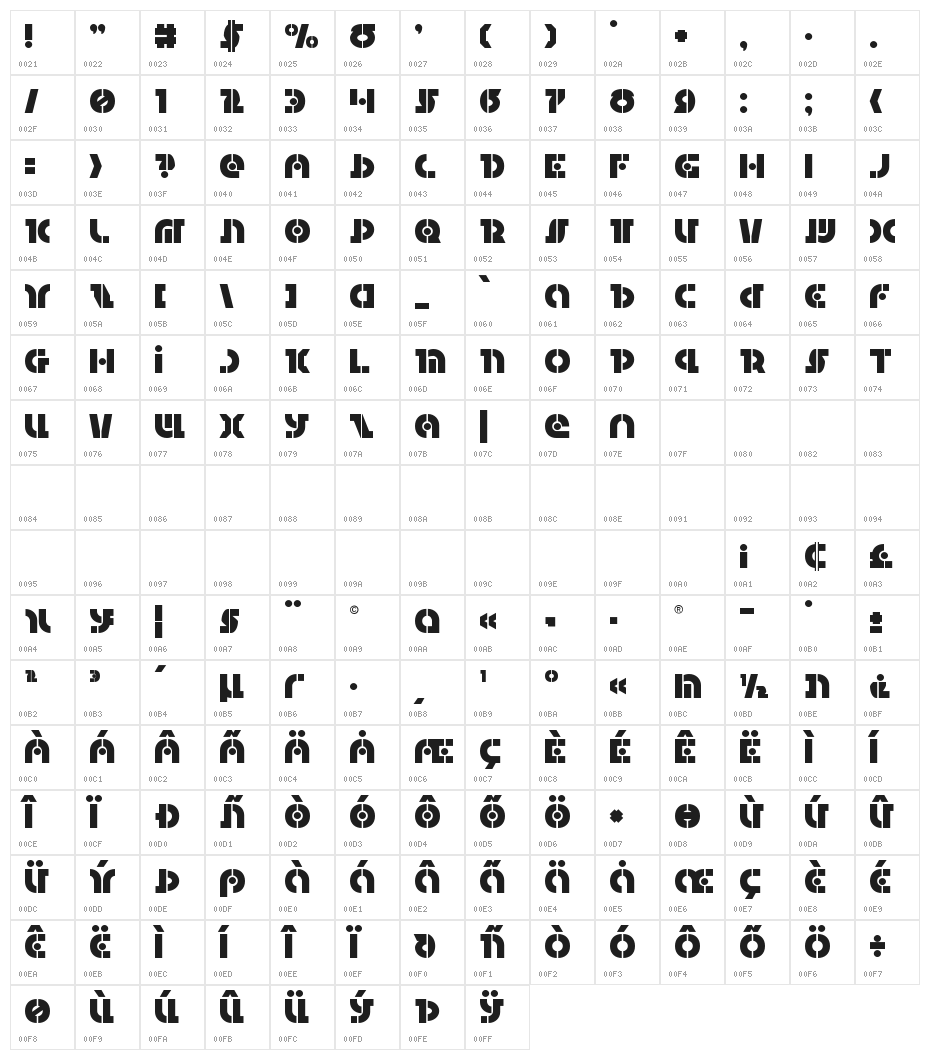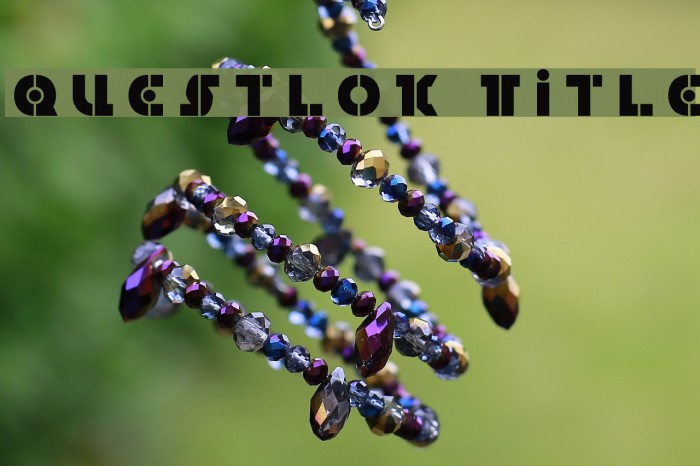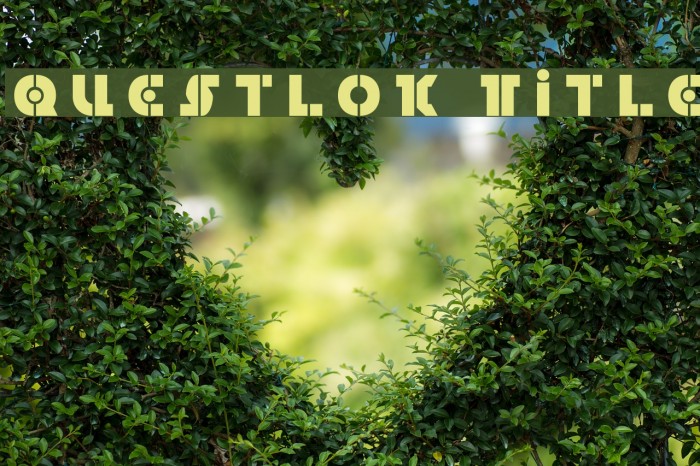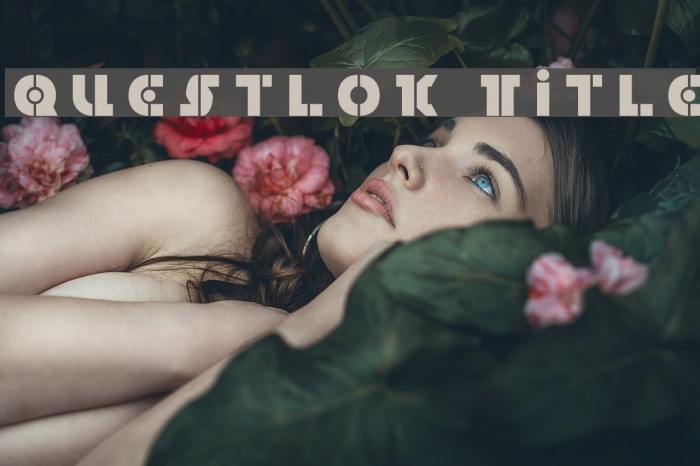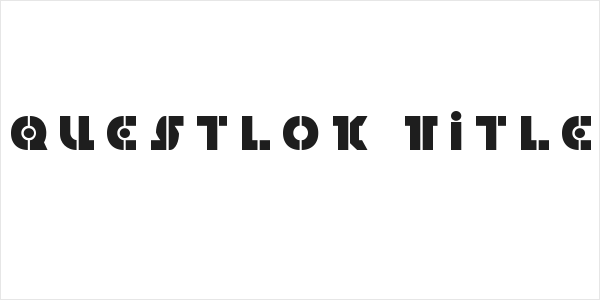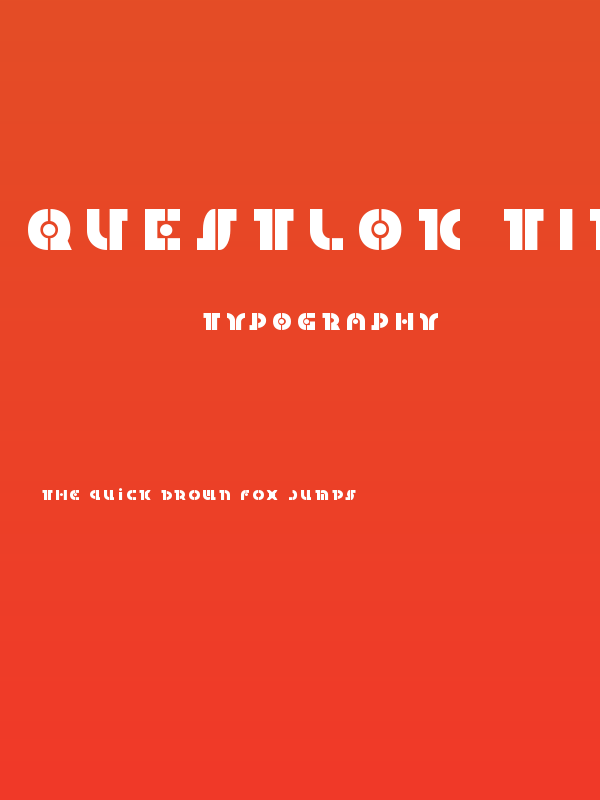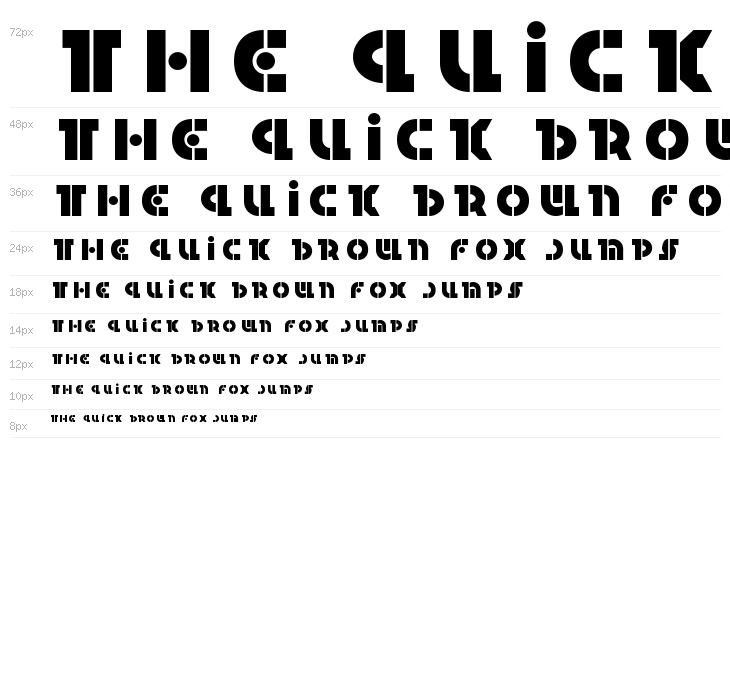
Questlok Title Font
Questlok Title Description
This font features a bold and geometric style with a modern and futuristic aesthetic. Each character is constructed with a combination of solid shapes and negative space, creating a unique and eye-catching appearance. The uppercase and lowercase letters maintain a consistent design, emphasizing symmetry and balance. Numbers and special characters follow the same geometric theme, ensuring a cohesive look across all elements. The font's distinct style makes it ideal for projects that require a strong visual impact.
| Proposed Projects | Ideal for branding, posters, album covers, and any project needing a striking, modern look. |